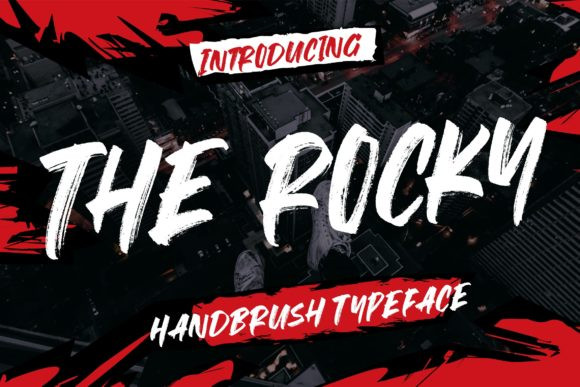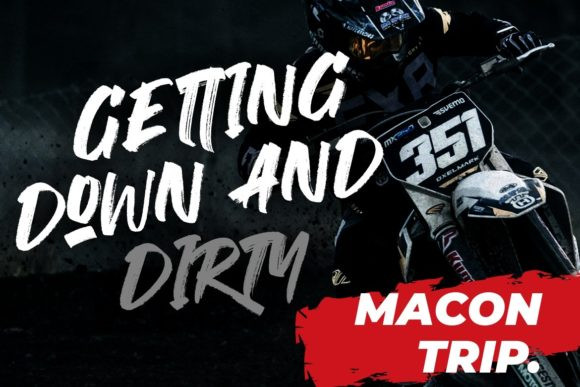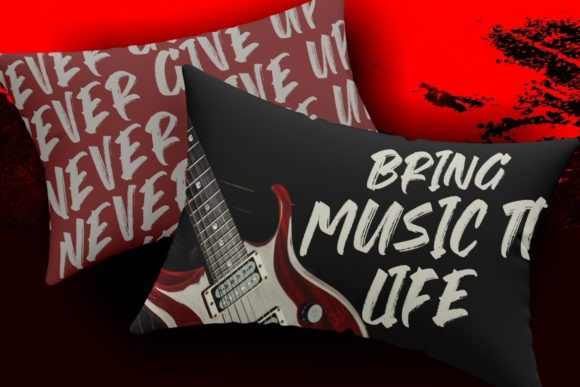
The Rocky Font
The Rocky is hand brush font with scratch bold natural textures.
Fall in love with its incredibly versatile style and use it to create gorgeous wedding invitations, beautiful stationary art, eye-catching social media posts, and much more!